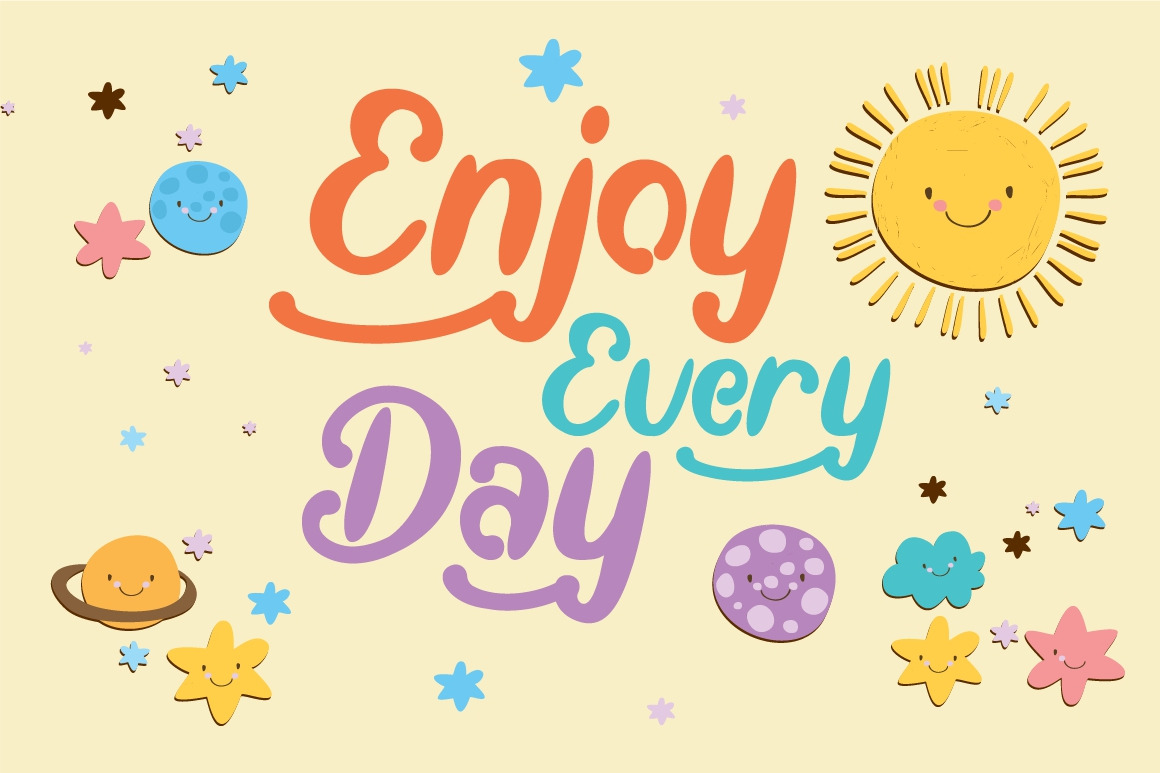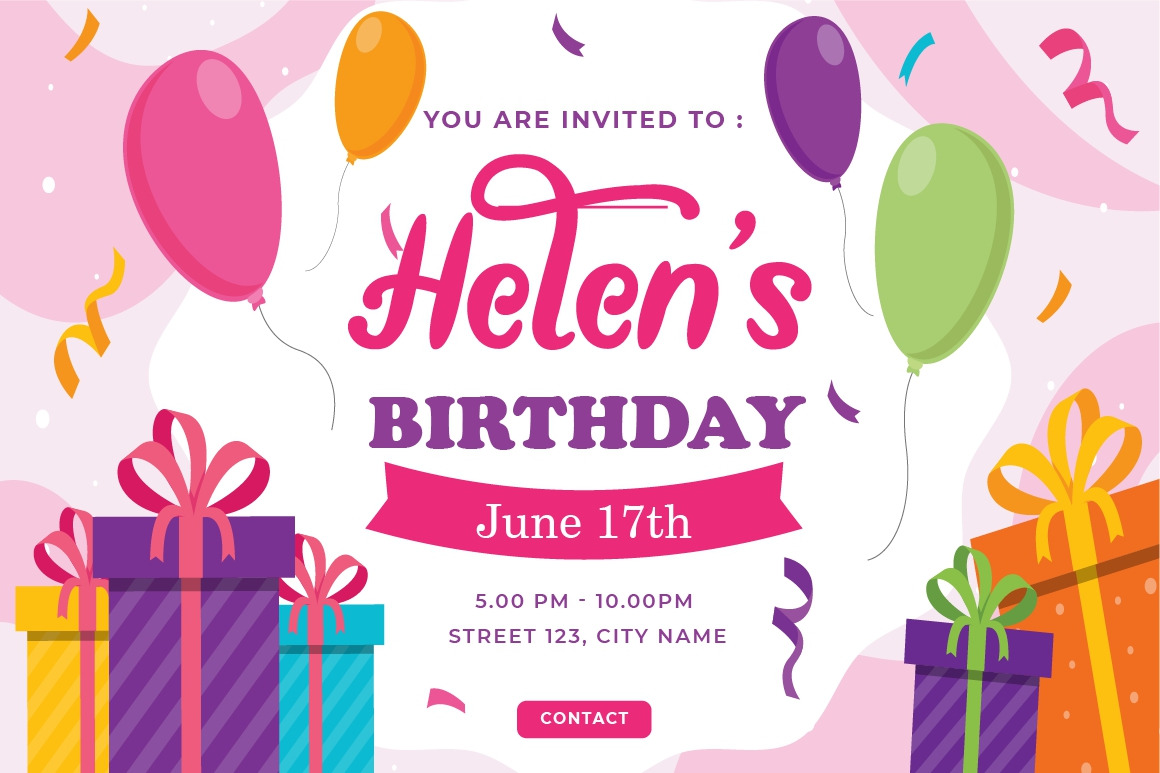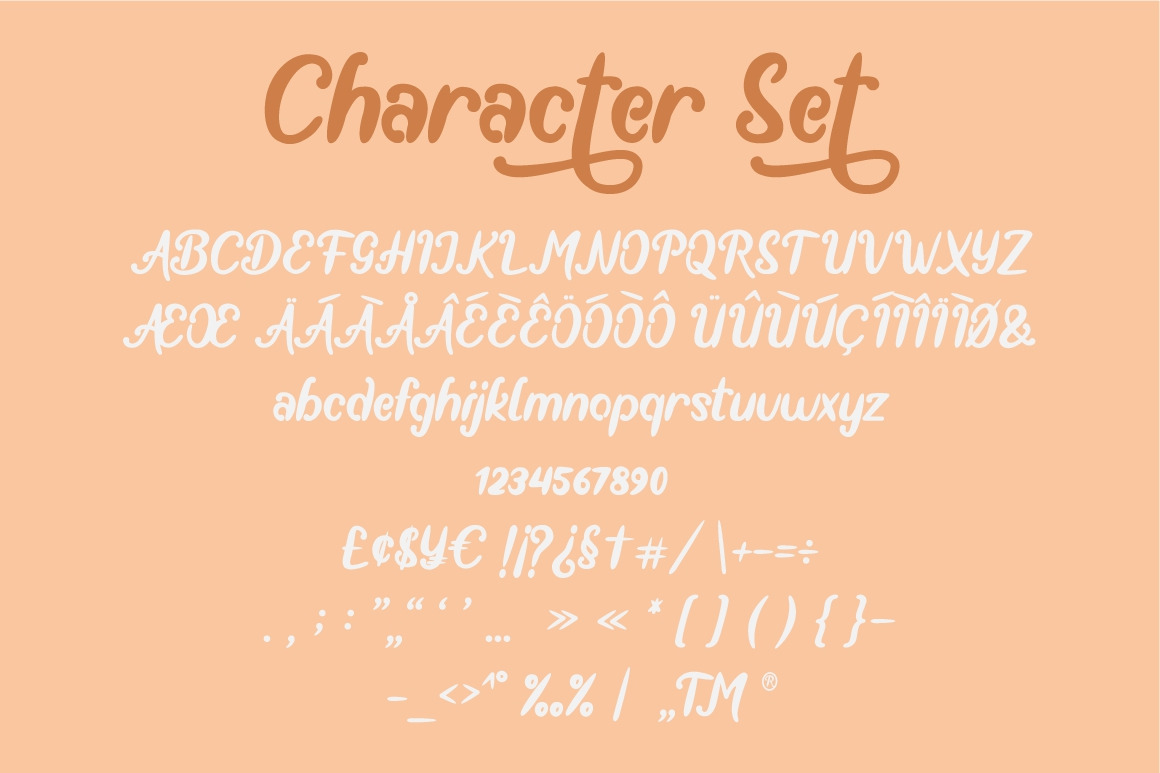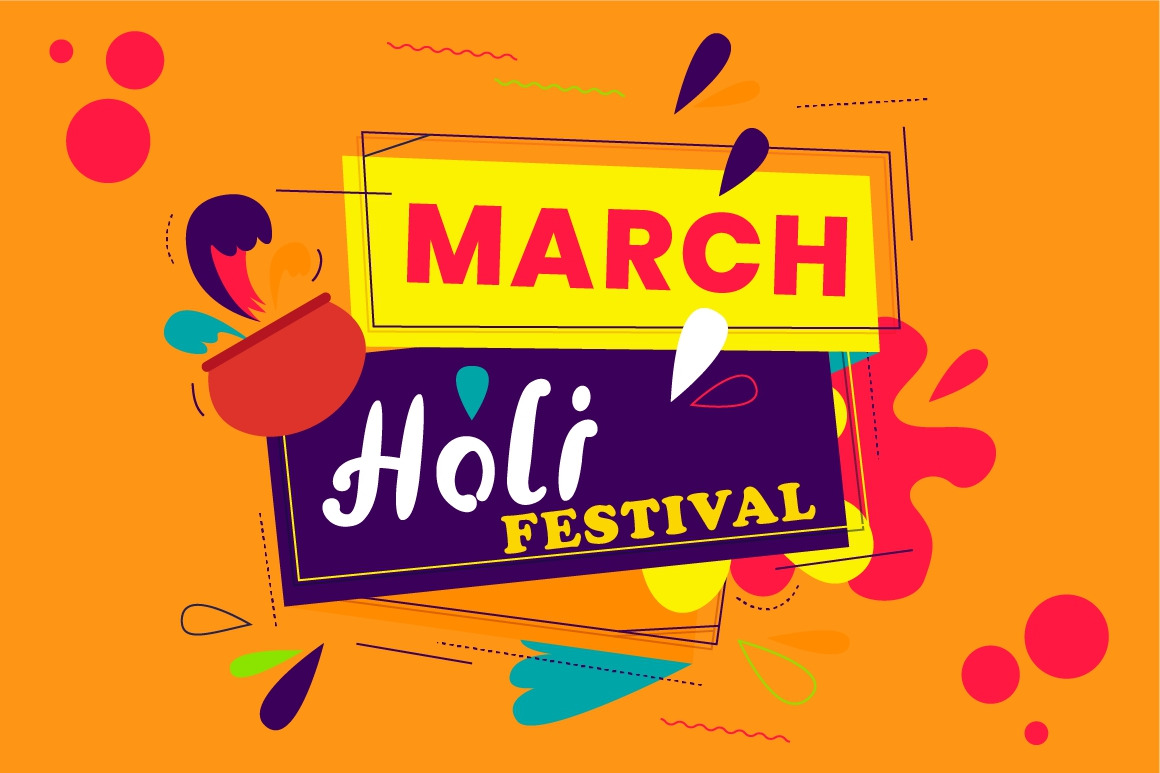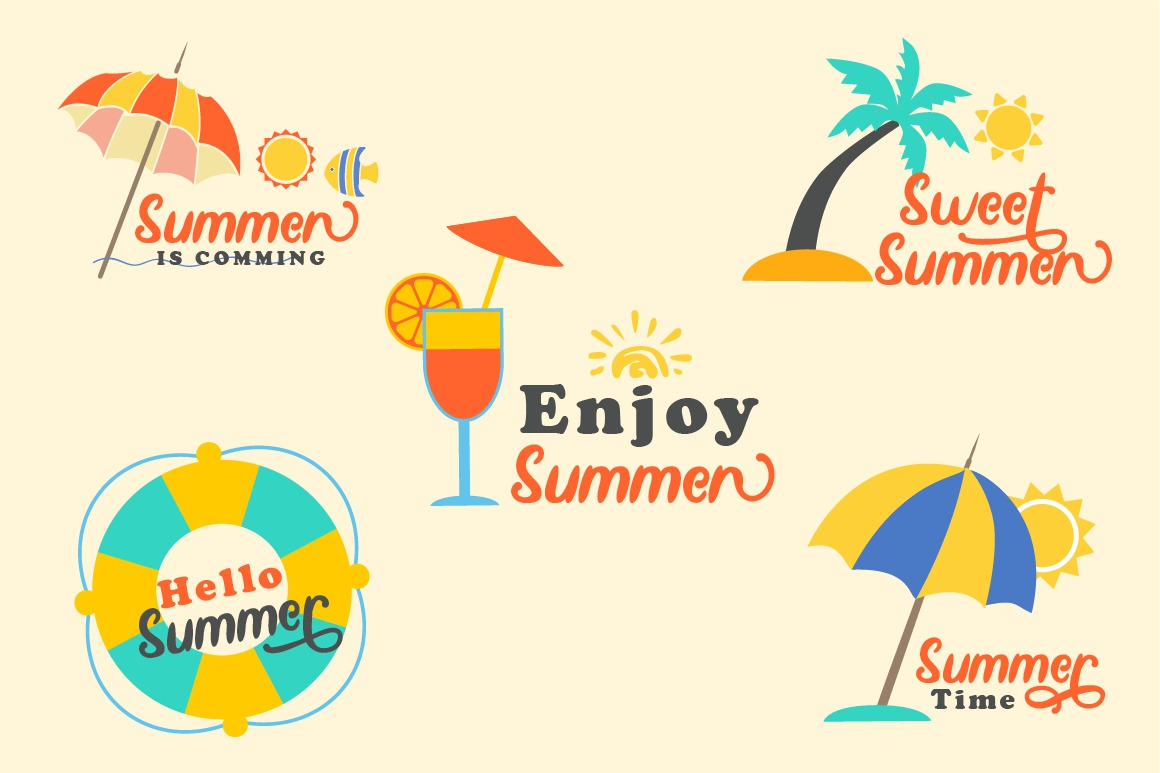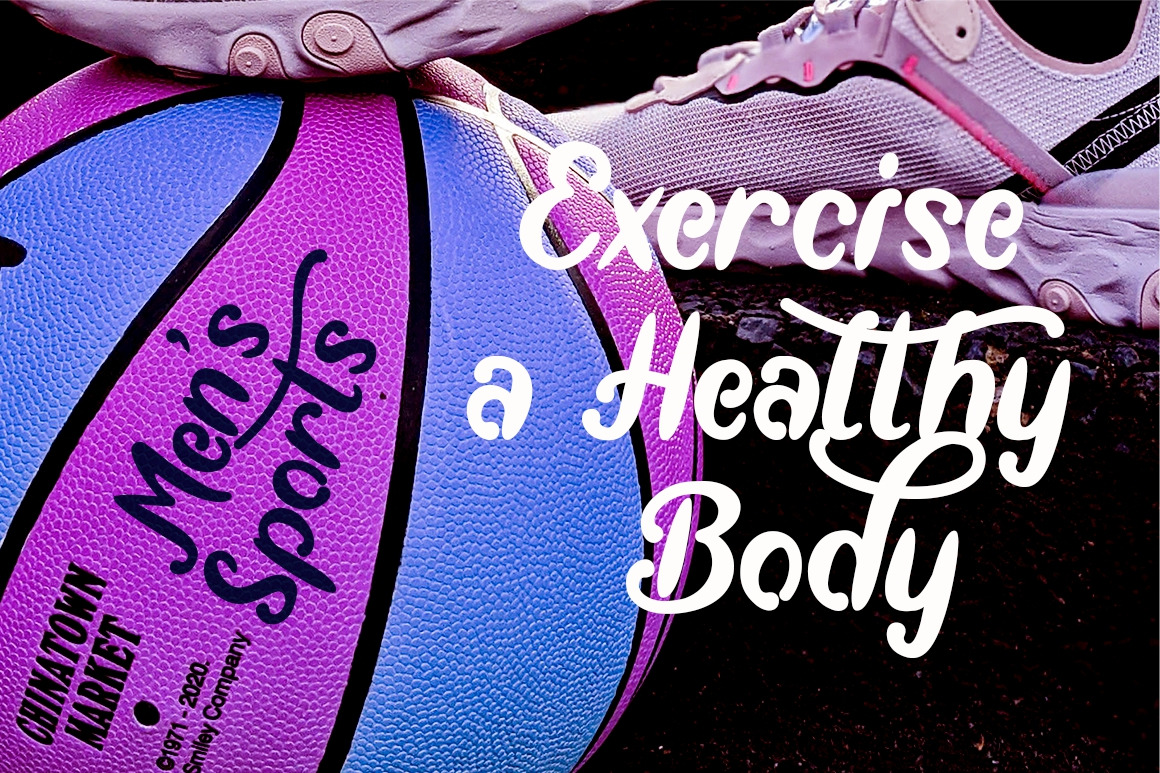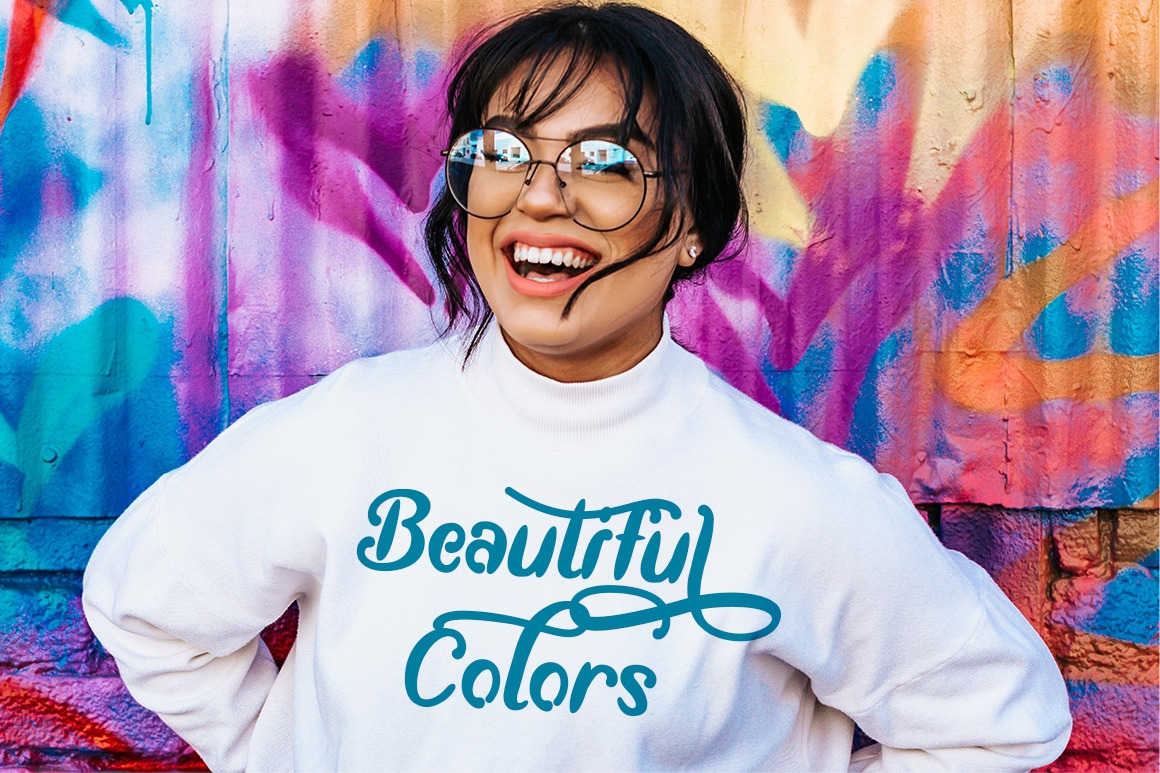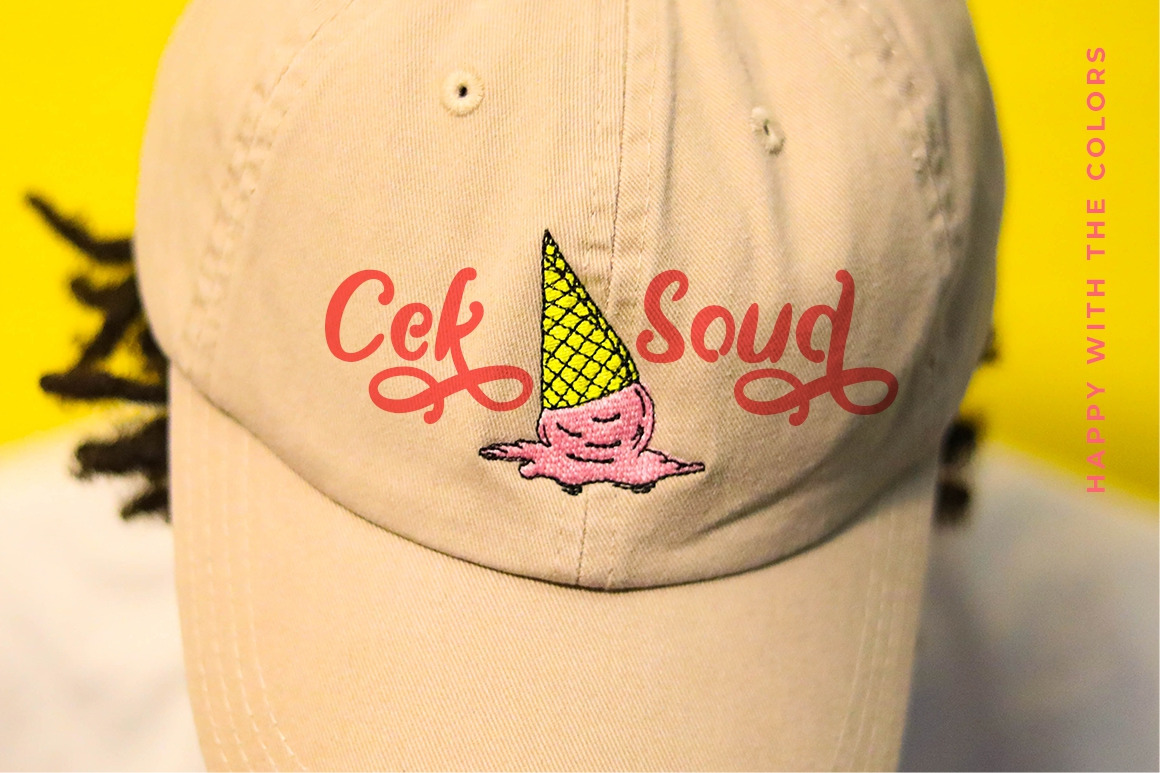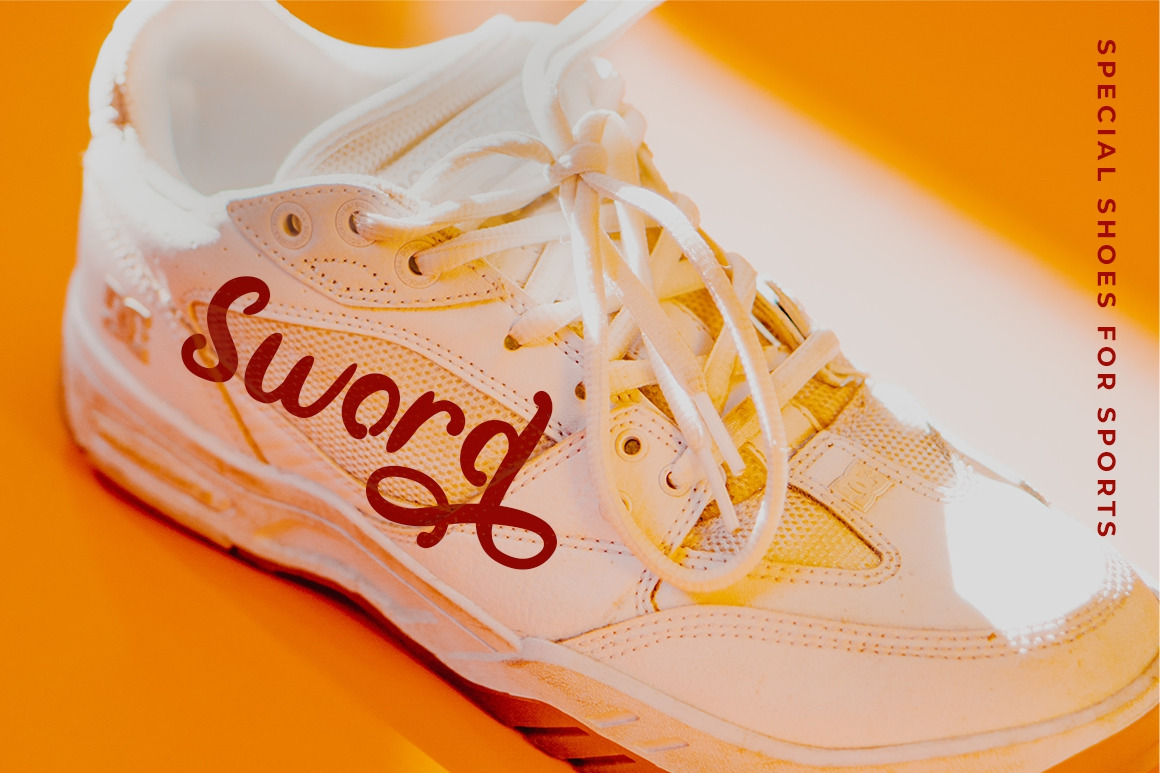
Absolute Joyful - Quirky Font
Absolute Joyful
Absolute Joyful is a playful quirky display font. Font with bold characters and smooth corners, plus the number of alternate characters provided. Making this font is perfect for making your projects playful, fun and full happiness.
Absolute Joyful would be perfect for quotes, doodle, comic, books, greeting cards, toys, posters, baby clothing, picture books or anything that requires a fun and happiness look!
- Number, Punctuation And Symbols
- Multilanguage Support
- Alternate